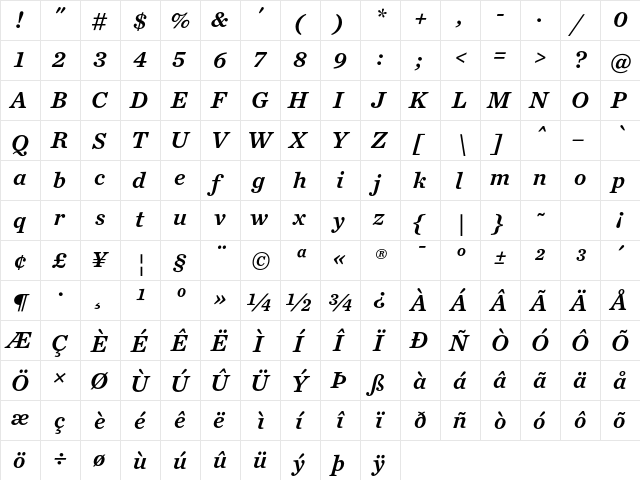
Chronicle Text G4 Semibold Italic
| Foundry | Hoefler & Frere-Jones |
| Designer | Hoefler & Frere-Jones |
Design Context for Chronicle Text G4 Typeface
Chronicle Text G4 takes a measured approach to typography — its balanced proportions and neutral character make it a reliable workhorse for both digital and print work. Its italic angle brings a sense of urgency and motion to the letterforms. Its bold stroke weight gives it real presence on the page.
Pro Tip: Use Chronicle Text G4 for emphasis, pull quotes, and subheadings where its slanted energy can add rhythm to the layout.